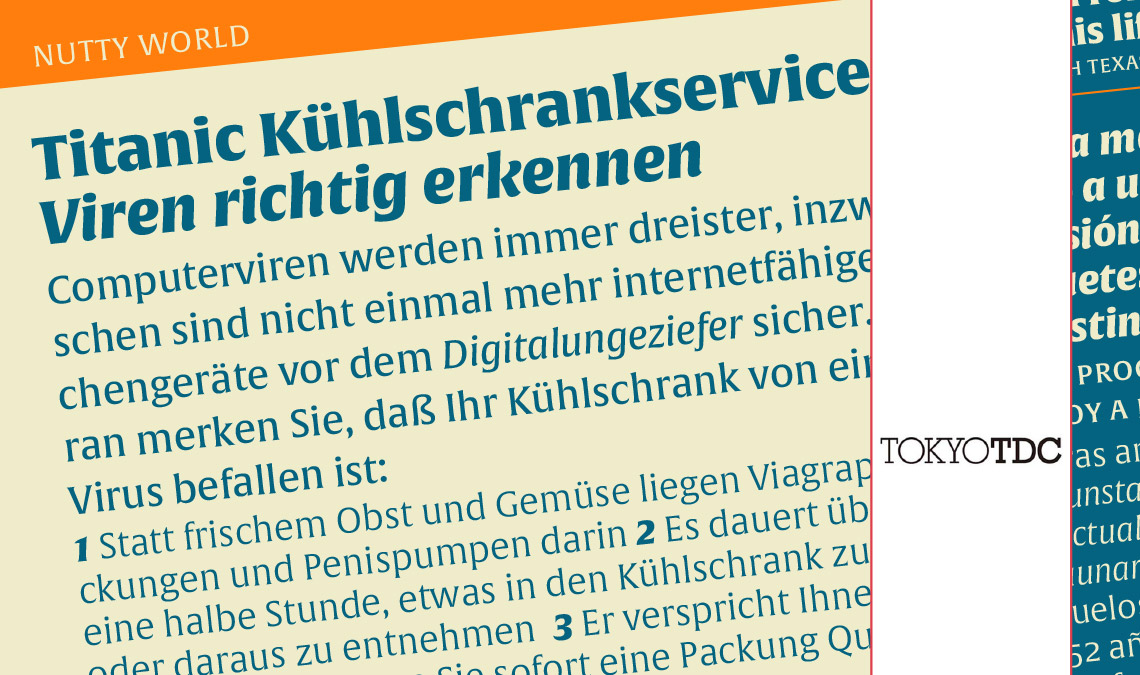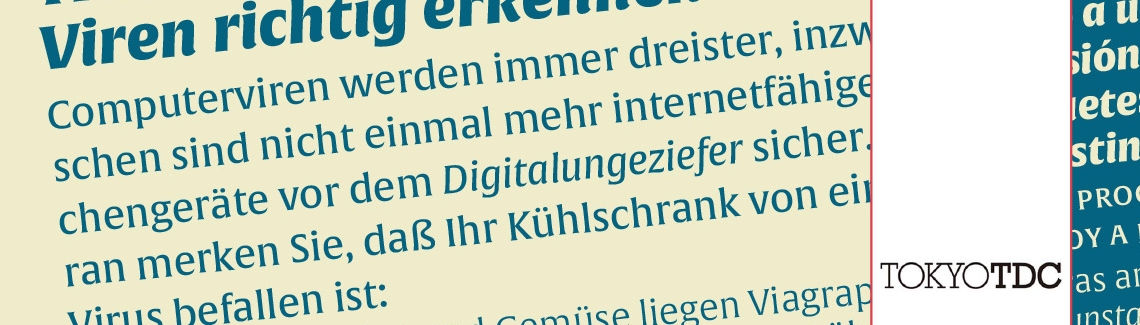
TDC Tokyo 2016
Alverata wins the Type Design Prize
Alverata, a contemporary and eclectic typeface drawn from roots in Romanesque Europe, designed by Dr Gerard Unger has received the Type Design Prize in the international competition Tokyo TDC 2016. Alverata was selected as best in the typeface design category among 2800 entries.